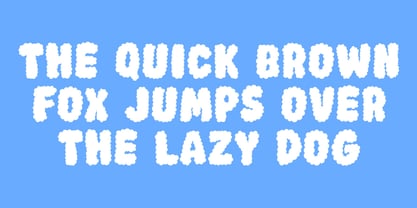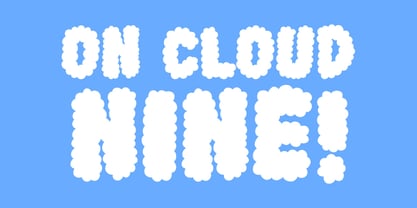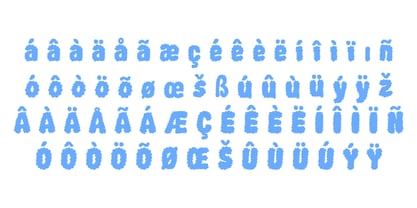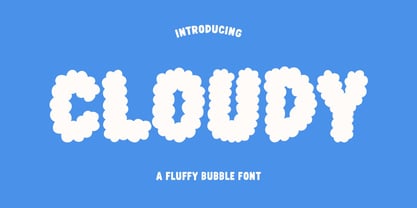
Cloudy
by Happy Type Club
The Cloudy Font Family was designed by Isabel Clarke and published by Happy Type Club. Cloudy contains 1 styles.
Cloudy is a fluffy chunky bubble typeface perfect for any fun quirky design work! This font can be used for anything such as t-shirt designs, phone cases, greeting cards, invitations, mugs and so much more! Get creative!
Designers: Isabel Clarke
Publisher: Happy Type Club
Foundry: Happy Type Club